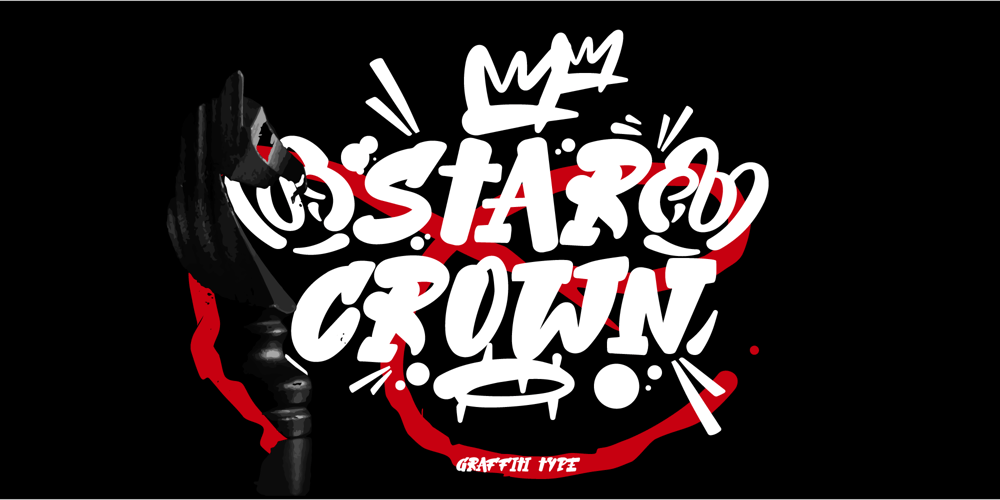
Star Crown Font Family was designed by ryan creative and published by ryan creative. Star Crown contains 1 styles and family package options. Hello creatives Introducing the Star Crown inspired by graffiti style. accompanied by additional ornaments that you can customize your own style. can be applied like, sticker, image style etc. FEATURE; Uppercase. Support Foreign, Numbers and Punctuation. Regular, Ornament & ligatures Works on PC. Simple installation. Accessible in Adobe Illustrator, Adobe Photoshop. Adobe InDesign, it even works in Microsoft Word. Fully accessible without additional design software. Star Crown is coded with Unicode PUA, which allows full access to all additional characters without having to design any special software. Mac users can use the Font book, and Windows users can use the Character map to view and copy any extra characters to paste into your favorite text editor/app. Thank you for visiting ๐